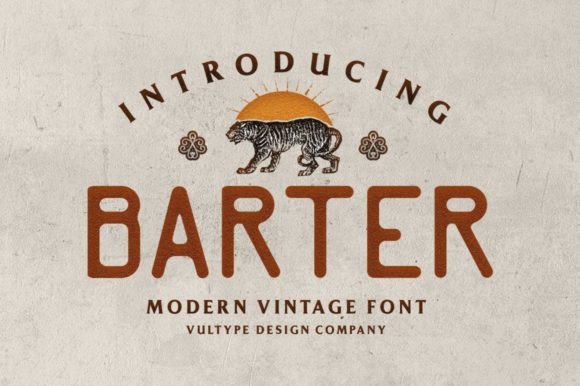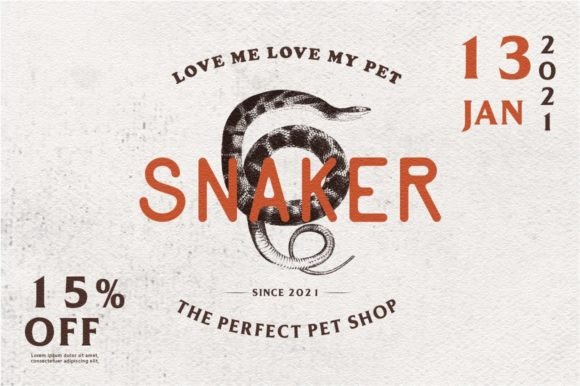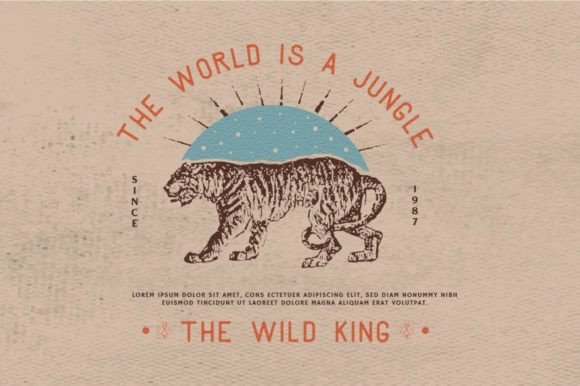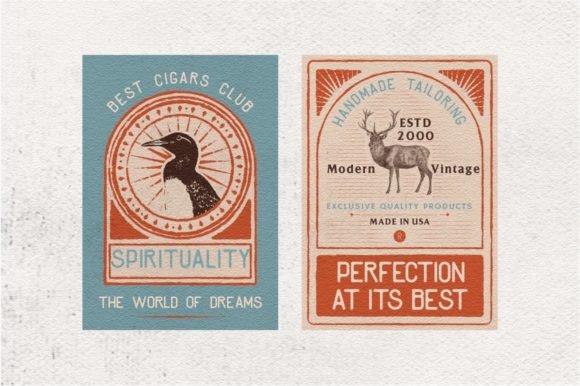
Barter Font: Retro Sans Serif for Vintage Logo Design & Branding
About the Barter Font
Unleash your creativity with Barter Font, a versatile font perfect for a wide range of applications. Barter is vintage sans serif font perfect for logotypes, branding, logos, digital lettering arts, T-shirt/apparel, posters, magazines, signs, advertising, and anything you wish to create!